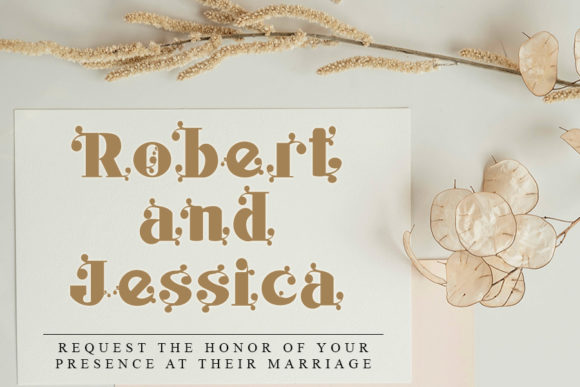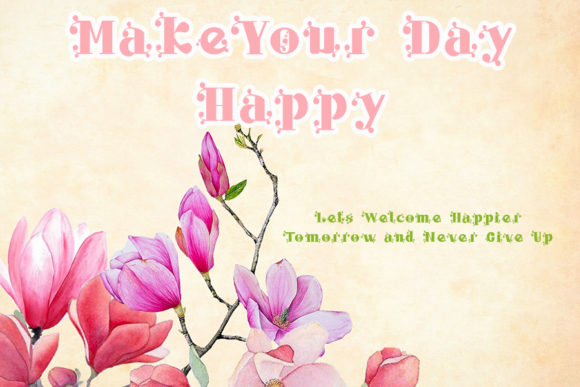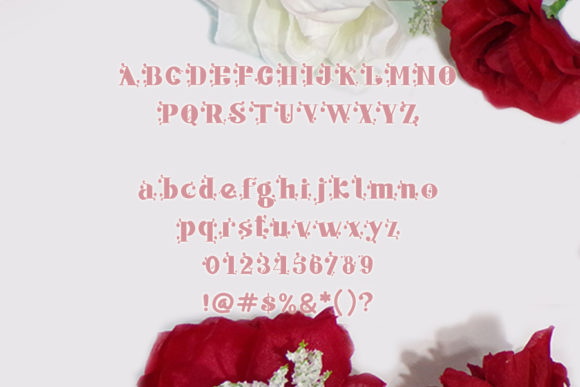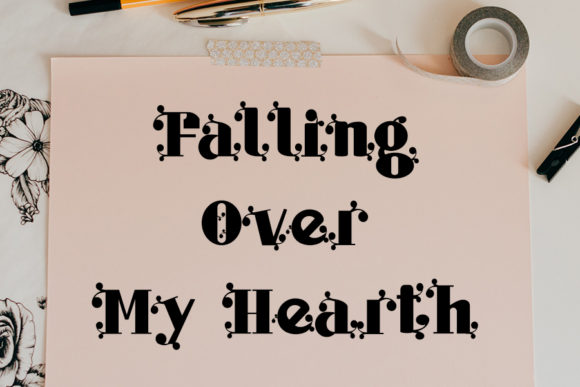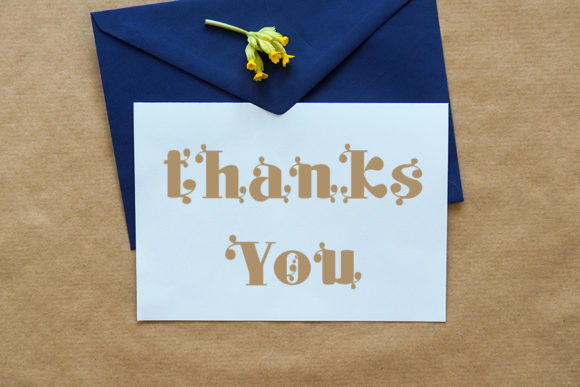
The Perfect Note: Discovering the Bell Font
Have you ever been brainstorming a creative project, and the perfect font just eluded you? The words and ideas flow, but that one crucial element seems to be missing? For designers and creatives alike, finding the right font can make all the difference between a good design and a great one.
Enter the Bell Font, a modern and elegant display font that’s sure to strike the right chord. With its chunky lettering and friendly vibe, this font is the perfect addition to any design project. Whether you’re working on a logo, poster, or social media campaign, the Bell Font is a valuable asset that can elevate your design to new heights.
- Unique Characteristics: Distinctive bell-shaped design, ideal for titles and headings
- Font Weight: Available in 4 weights: Light, Regular, Bold, and Heavy
- Kerning and Ligatures: Includes advanced kerning and ligature pairs for professional typography
Bell Font Review
I recently had the chance to work with the Bell Font, and I must say it’s been an interesting experience. Let’s dive into what I think works well and what doesn’t.
- Unique aesthetic: Bell Font has a distinct, vintage vibe that can add a touch of elegance to your design.
- Good for headlines: The font is perfect for creating eye-catching headlines and titles due to its bold and eye-catching nature.
- Easy to read: Despite its unique appearance, the font is relatively easy to read, especially in larger sizes.
- Limited flexibility: The font is quite rigid in its design, making it challenging to use for longer blocks of text or body copy.
- Not ideal for small sizes: When used in smaller sizes, the font can become difficult to read, especially for those with visual impairments.
- May not be accessible: Due to its unique design, the font may not be fully accessible for screen readers or other assistive technologies.
Overall, the Bell Font is a great choice for designers who want to add a touch of sophistication and elegance to their designs. However, it’s essential to use it wisely and consider its limitations. With the right use case, the Bell Font can be a valuable addition to your design toolkit.
Alternatives to Bell Font
1. Copperplate
Copperplate is a elegant, cursive font that is often used for formal invitations and announcements. It is more decorative than Bell Font and has a more intricate design. Use Copperplate for high-end branding, invitations, and formal documents.
Compared to Bell Font, Copperplate is more ornate and has a more luxurious feel. While Bell Font is simple and classic, Copperplate is more elaborate and eye-catching.
Carolyna Pro is a modern, elegant font that is similar to Bell Font but with a more contemporary feel. It is a versatile font that can be used for a variety of applications, from branding to packaging. Use Carolyna Pro for high-end branding, packaging, and digital design.
Compared to Bell Font, Carolyna Pro is more modern and has a more streamlined design. While Bell Font is classic and timeless, Carolyna Pro is more trendy and fashion-forward.
3. Didot
Didot is a luxurious, elegant font that is often used for high-end branding and packaging. It is a classic font that has been used for centuries, and it is still popular today. Use Didot for high-end branding, packaging, and luxury goods.